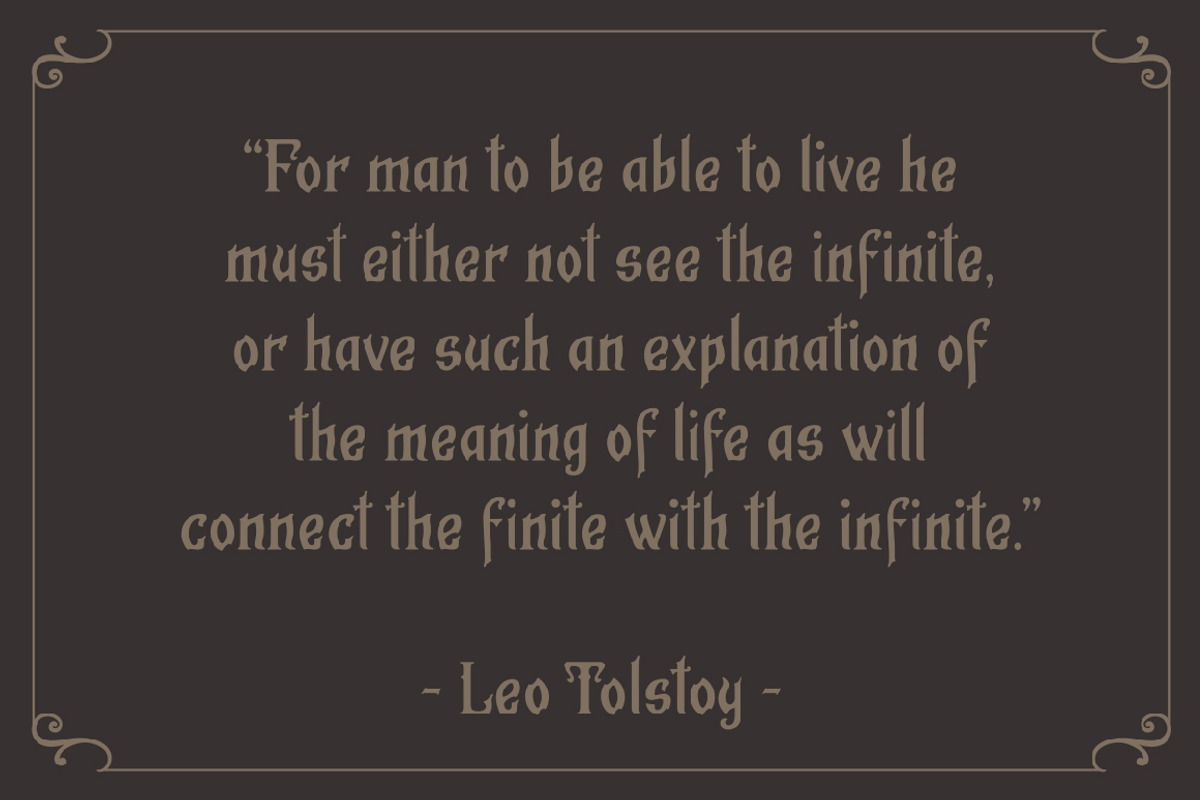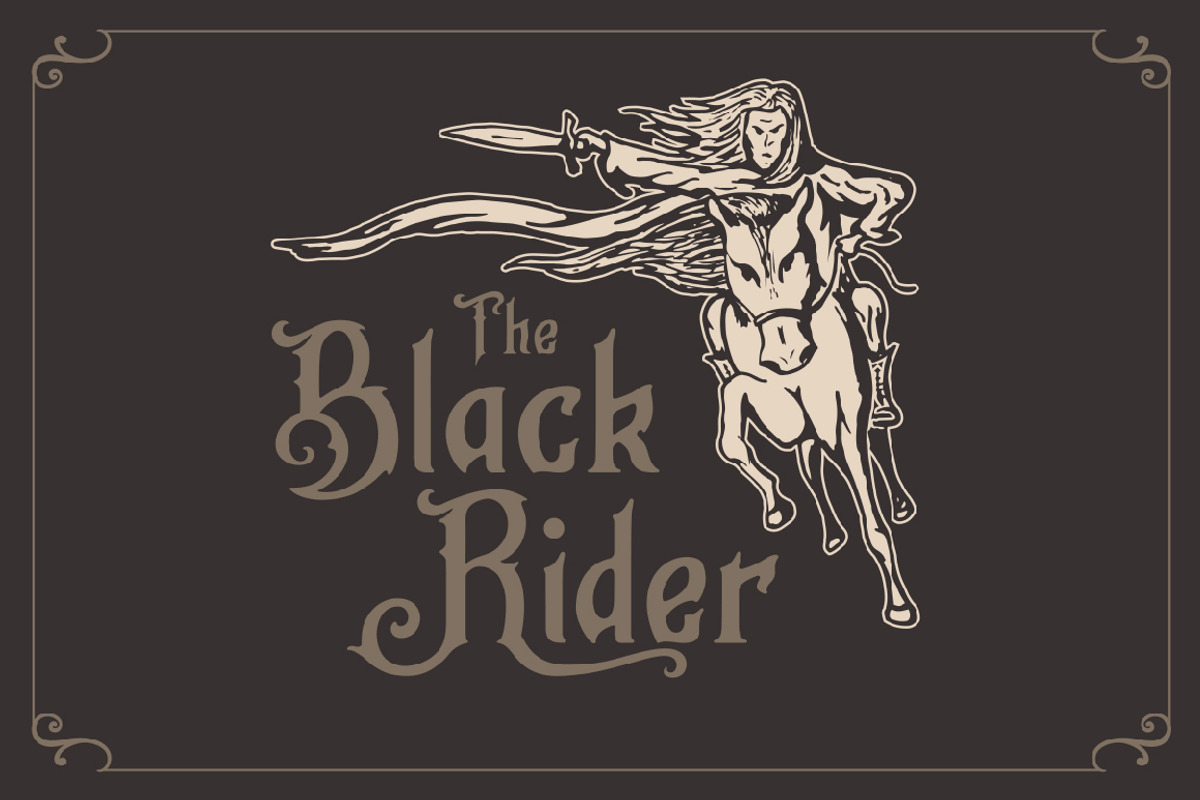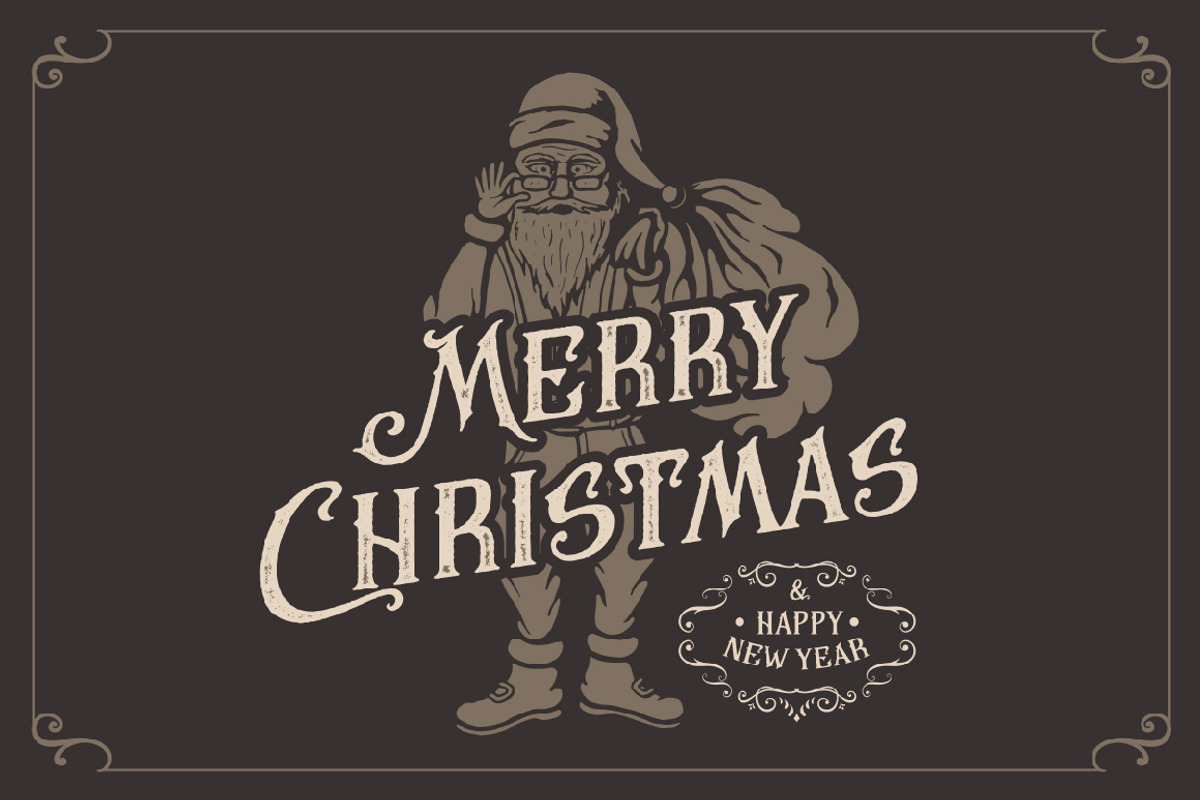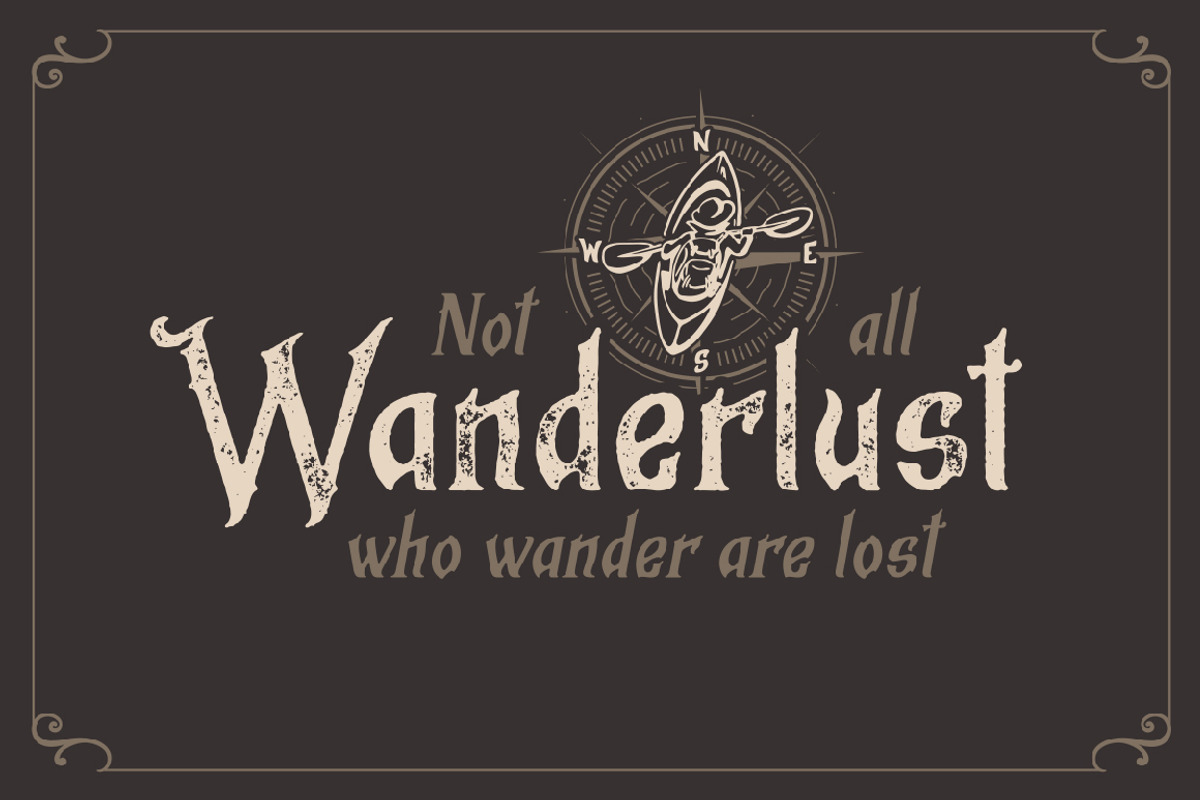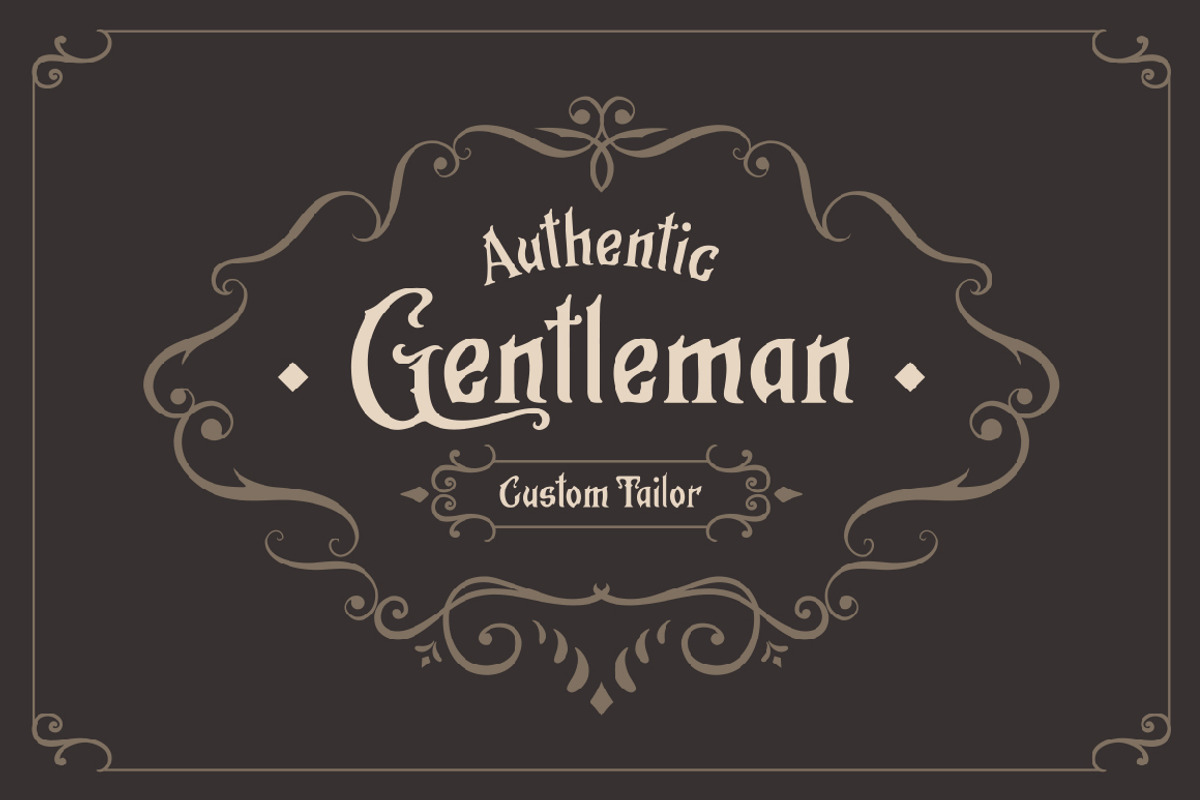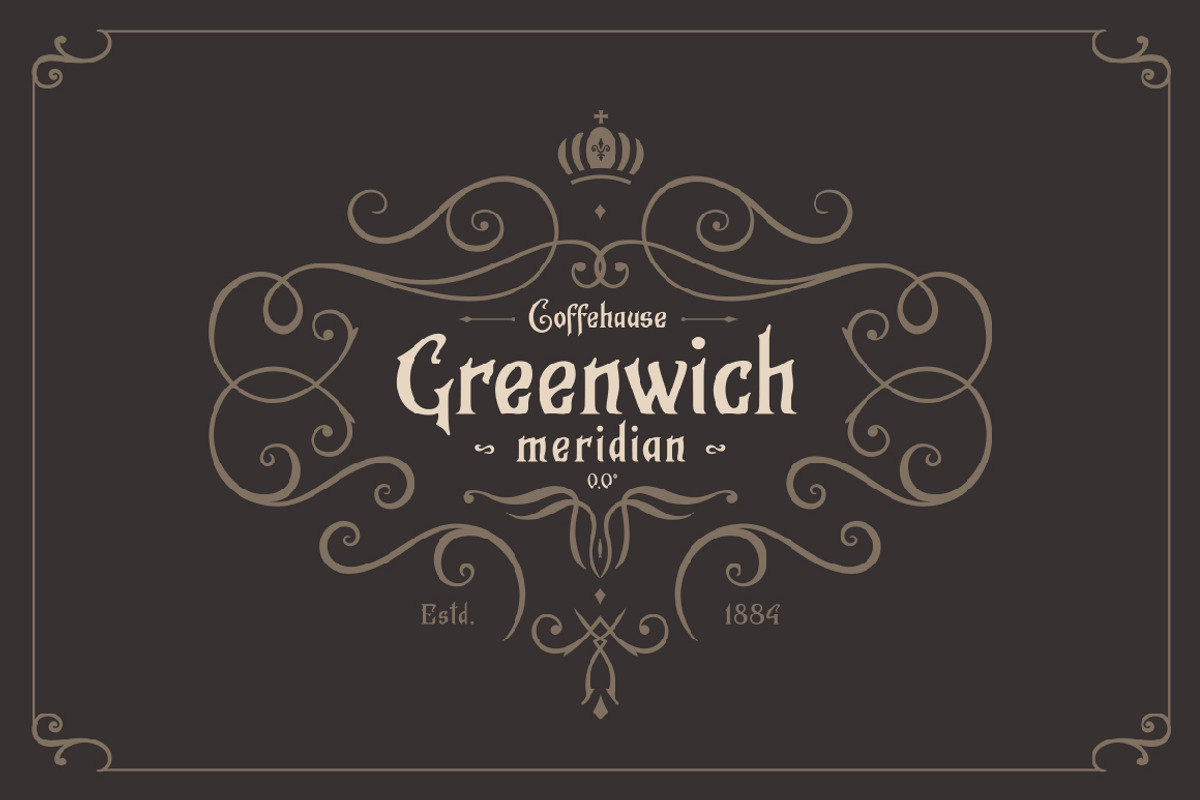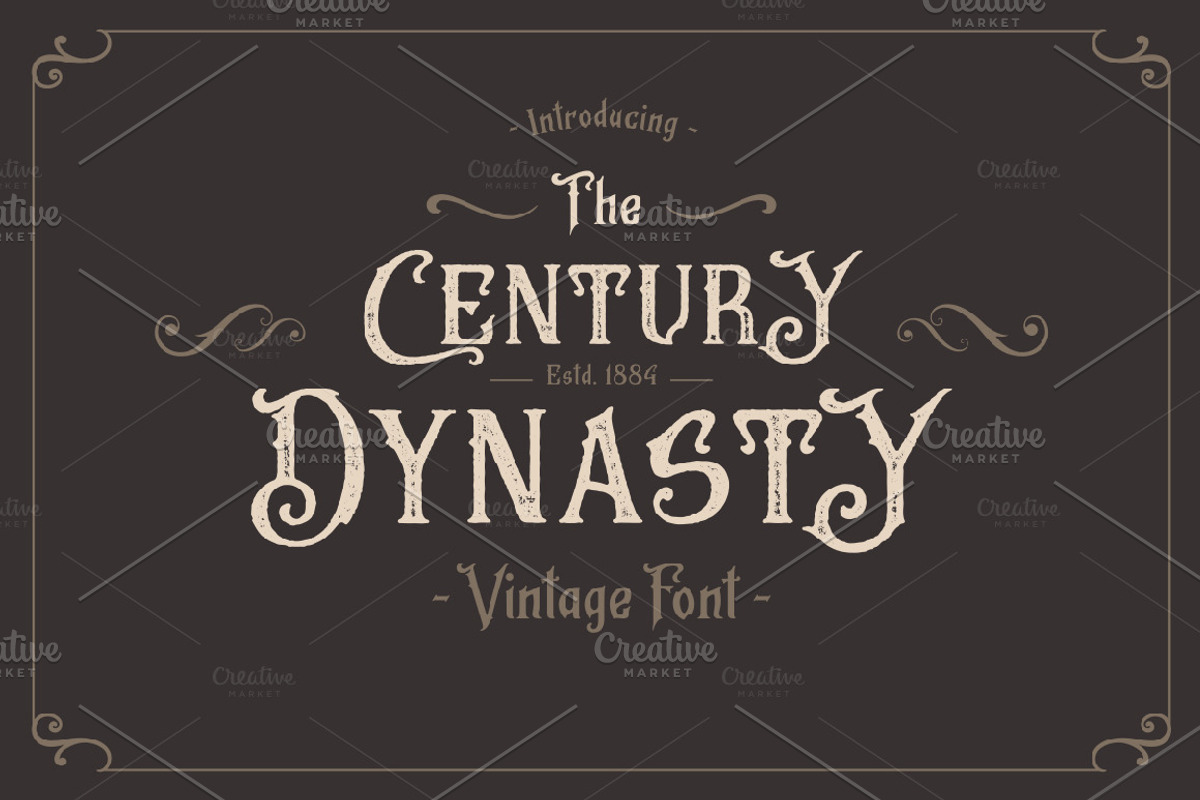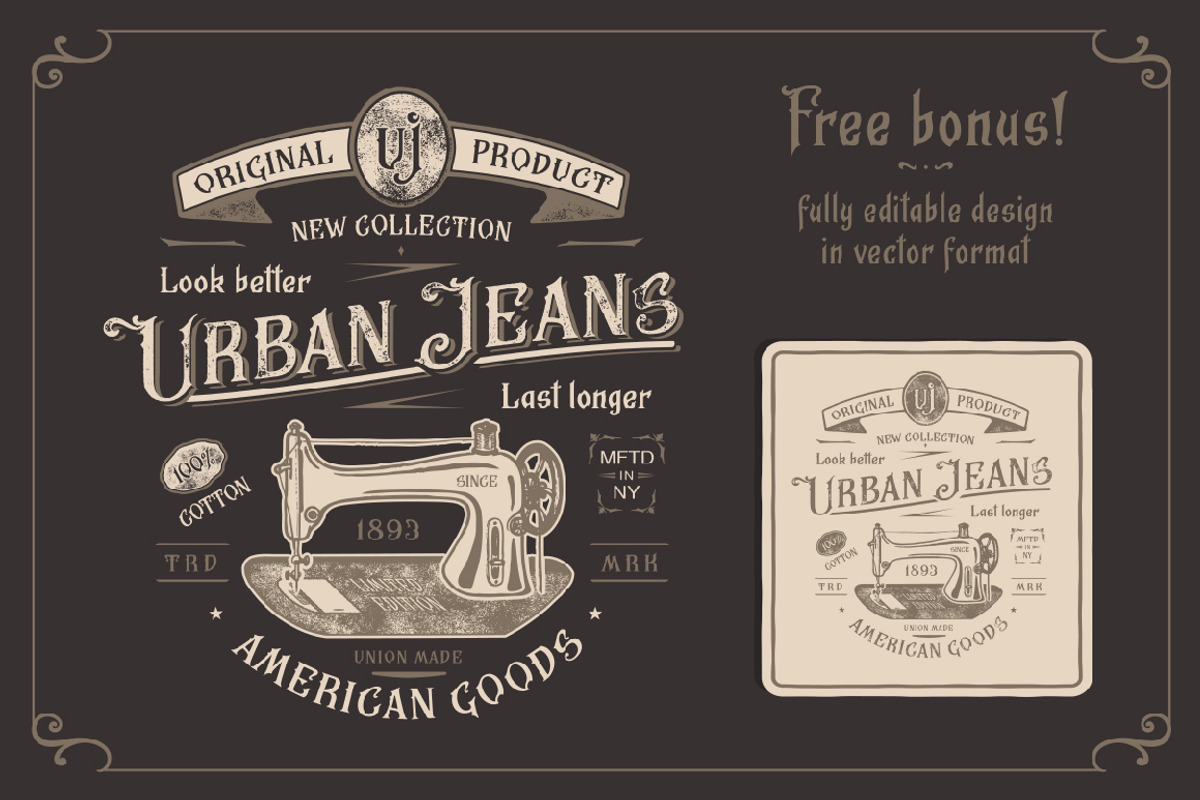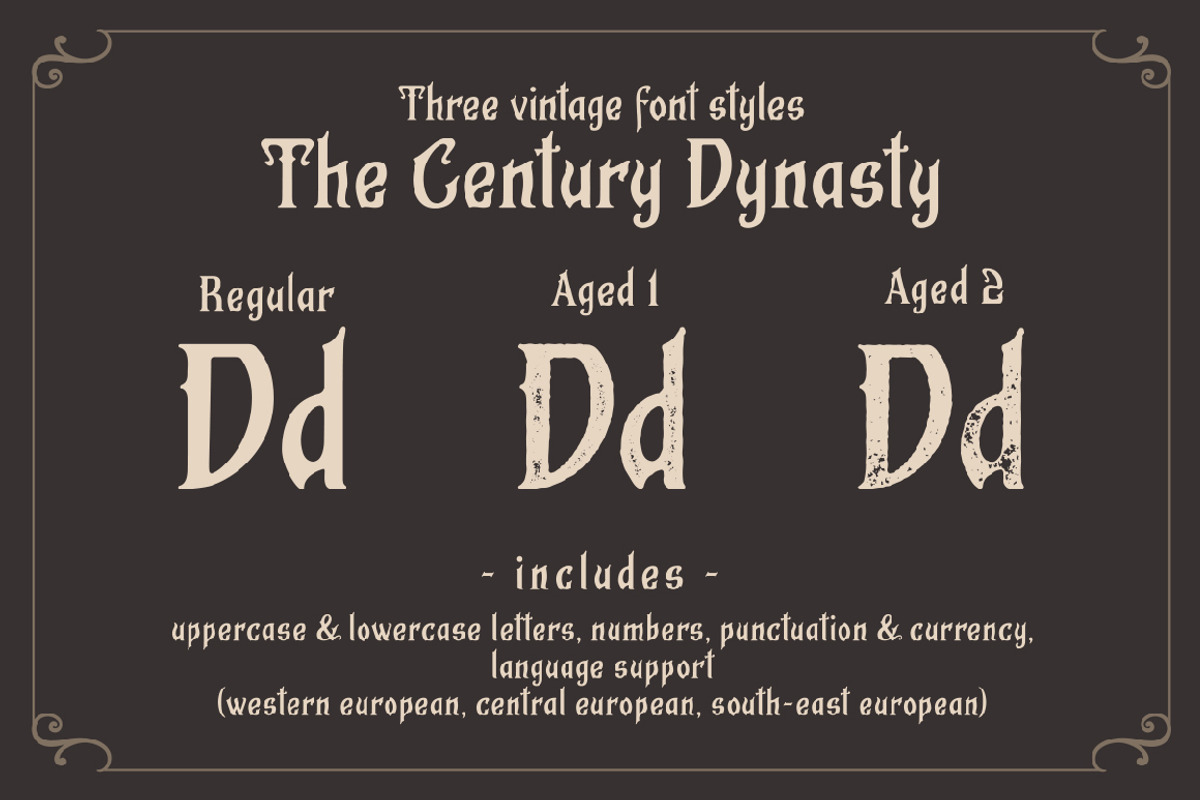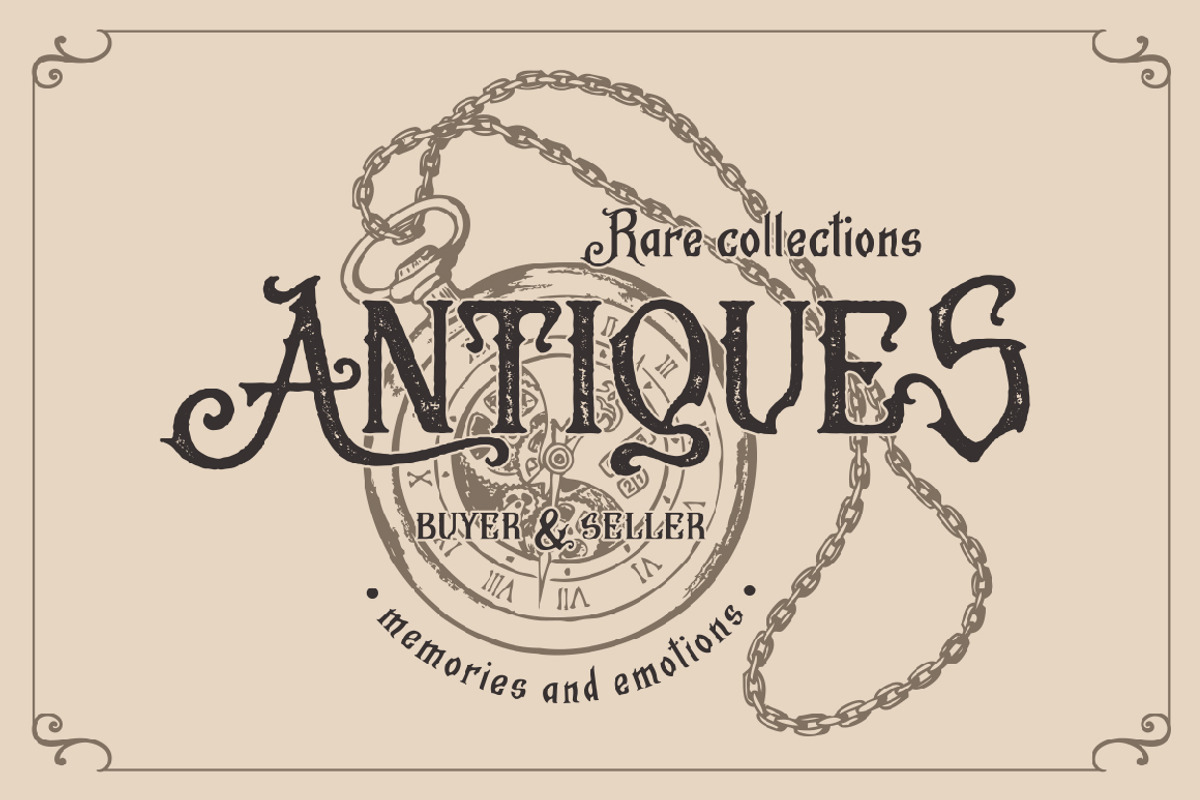
The Century Dynasty
Introducing! The Century Dynasty is serif font. It has a vintage look design styles. It comes with three styles for different types of design. All styles are well combined and complement each other. The font works well for large headlines and short words. The typeface includes a full set of uppercase and lowercase letters, as well as language support (Western European, Central European and South-East European), numerals, punctuation and currency symbols. Create stunning designs that are truly unique to your brand. Also you are given a free bonus - all decorative elements are used to demonstrate this product. They are in ai., eps., psd., svg. format with an editable text. I hope you enjoy this product, but anyway if you have some problems with this font, hit me up and I'll help you as soon as possible.